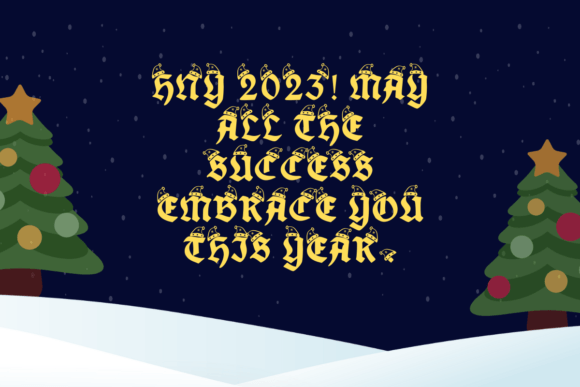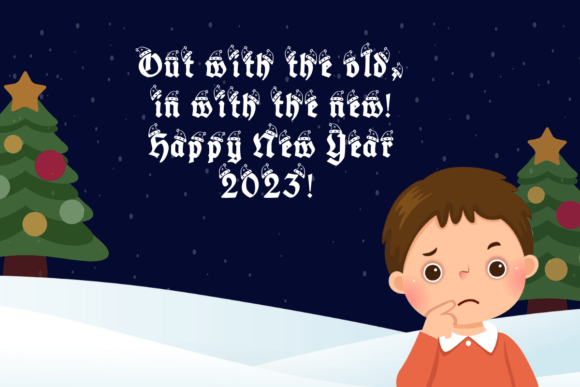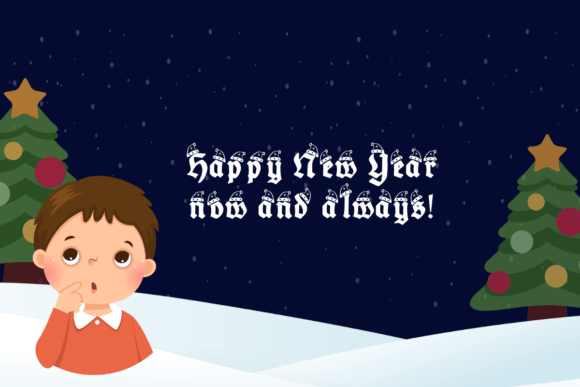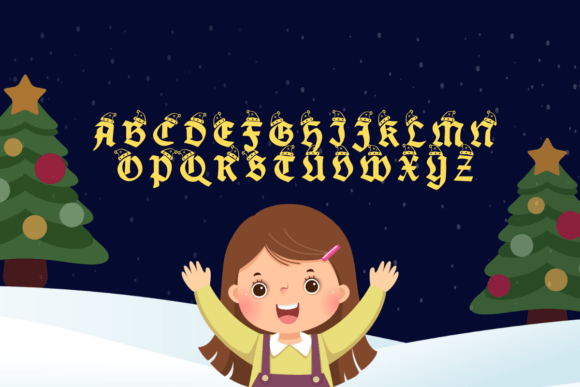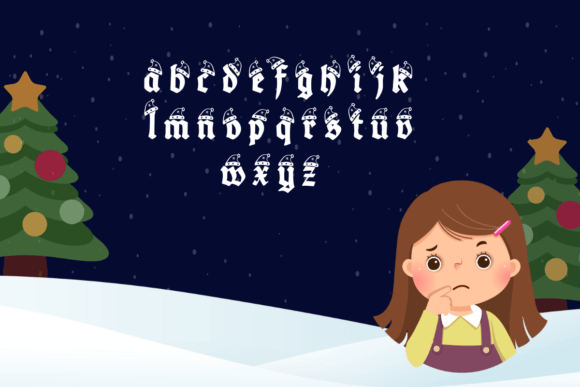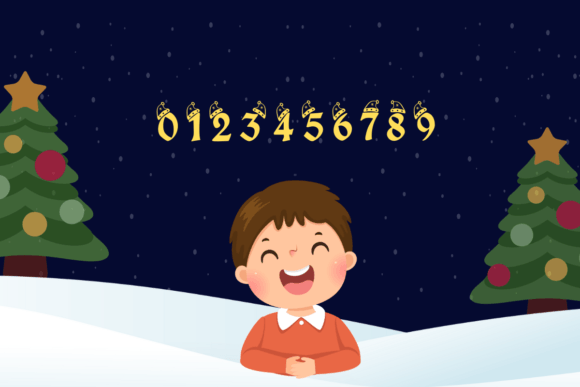
Deck the Halls with Typography: The Magic of Christmas Wishes Font
It’s that time of the year when creativity knows no bounds, and the world is filled with festive cheer. You’re rummaging through your design stash, searching for the perfect font to make your holiday project stand out. Suddenly, your eyes land on a quirky, decorative font that screams ‘Christmas magic’ – the Christmas Wishes Font. This delightful font is designed to add a touch of whimsy and charm to your designs, transporting your audience to a world of nostalgia and wonder.
As a designer, you understand the value of a well-chosen font in setting the tone for your project. The Christmas Wishes Font is a valuable addition to your toolkit, perfect for greeting cards, T-shirt designs, mug designs, crafts, gift tags, and holiday-themed projects. Its cheerful and festive vibe is sure to captivate your audience and leave a lasting impression.
Christmas Wishes Font Key Features
- Font Family: A unique, hand-drawn font designed specifically for Christmas and winter-themed applications.
- Unique Characteristics: The font features intricate, cursive-like lettering with festive ornaments and decorations, adding a touch of holiday magic to any design.
Christmas Wishes Font Review
Overall, I think the Christmas Wishes Font is a lovely addition to any holiday project. It’s perfect for creating festive and cozy designs that evoke a sense of warmth and cheer. ✨ The font’s unique blend of traditional and modern elements makes it stand out from other holiday fonts, and the varied character set includes a range of ornaments and icons that add an extra layer of interest.
Some of the things that work particularly well in this font include:
- ✨ Beautifully crafted characters that are both elegant and playful
- ✨ A wide range of punctuation and special characters to match the holiday theme
- ✨ Excellent support for non-English languages, making it a great choice for international projects
- ⚠️ Some characters may be difficult to read at smaller sizes, so be sure to test them carefully
- ⚠️ The font may not be suitable for use in situations where a more formal or traditional look is required
Overall, I think the Christmas Wishes Font is a great choice for anyone looking to add a festive touch to their designs. With its unique blend of style and functionality, it’s sure to become a holiday favorite.
To get the most out of the Christmas Wishes Font, try combining it with other festive elements, such as holly, snowflakes, or Christmas trees.
Use the font to create eye-catching headings or titles for your holiday projects.
Experiment with different font sizes, colors, and styles to create a unique and personalized look.
The Christmas Wishes Font is ideal for:
Alternatives to Christmas Wishes Font
Great Vibes is a beautiful, elegant script font that is perfect for creating a sophisticated and luxurious Christmas design. It has a more refined and intricate feel compared to Christmas Wishes Font, making it suitable for high-end holiday invitations, gift tags, and packaging.